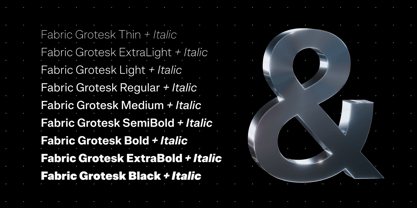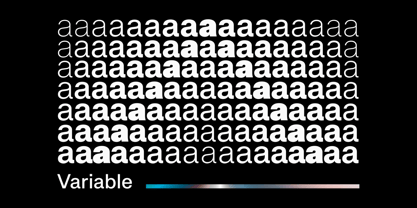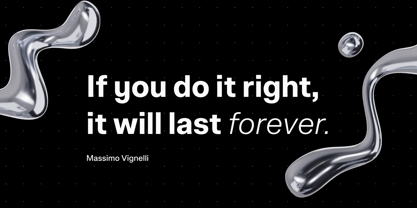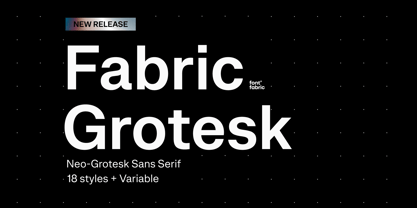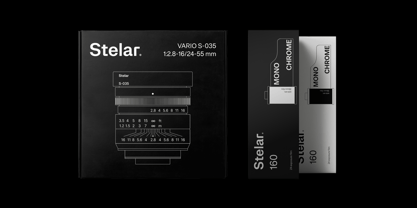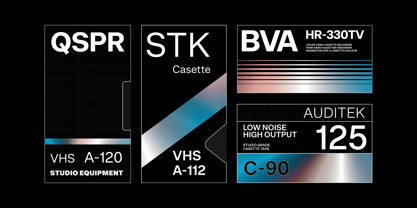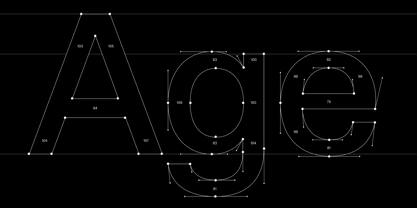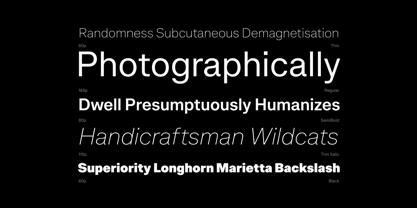
Fabric Grotesk
La familia tipográfica Fabric Grotesk fue diseñada por Plamen Motev y publicada por Fontfabric. Fabric Grotesk contiene 19 estilos y opciones de paquete familiar. Más información sobre esta familia
Fabric Grotesk is a workhorse Neo-Grotesk sans-serif built for high-performance design across digital and print platforms. Rooted in the visual clarity and precision of mid-century Swiss modernism, it offers the ultimate balance of functional neutrality and contemporary character for modern visual communications.
It is built to help creatives move fast, stay consistent, and keep typography looking sharp from first draft to final output. Its uniform construction and clean terminals deliver exceptional legibility at small body sizes, while its sharp alternates step forward with bold personality in headlines. Equipped with 18 static styles, 1 flexible Variable Font, and Extended Latin and Cyrillic support (including Bulgarian forms), it adapts effortlessly to complex international projects.
This versatility makes Fabric Grotesk the ideal foundation across diverse sectors:
Branding, visual identity, and corporate communications, web, digital products, and UI/UX design, editorial, publishing, advertising, and campaigns, packaging, fashion, lifestyle, and technology/SaaS, architecture and cultural institutions.
Whether shaping a clean design system or pairing it with serifs like Gwen or scripts like Nexa Script, Fabric Grotesk gives your work timeless modernism, clarity, and range.